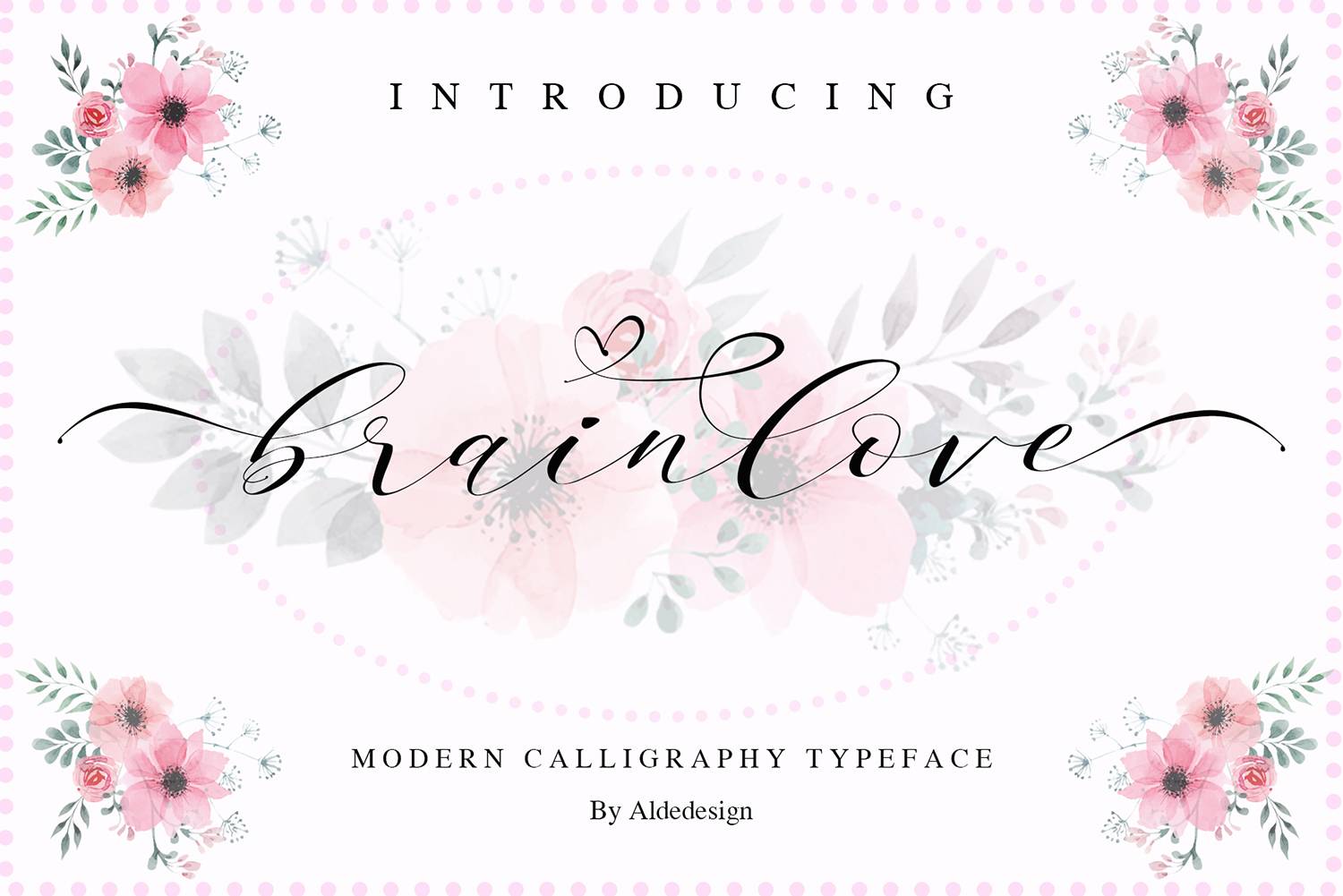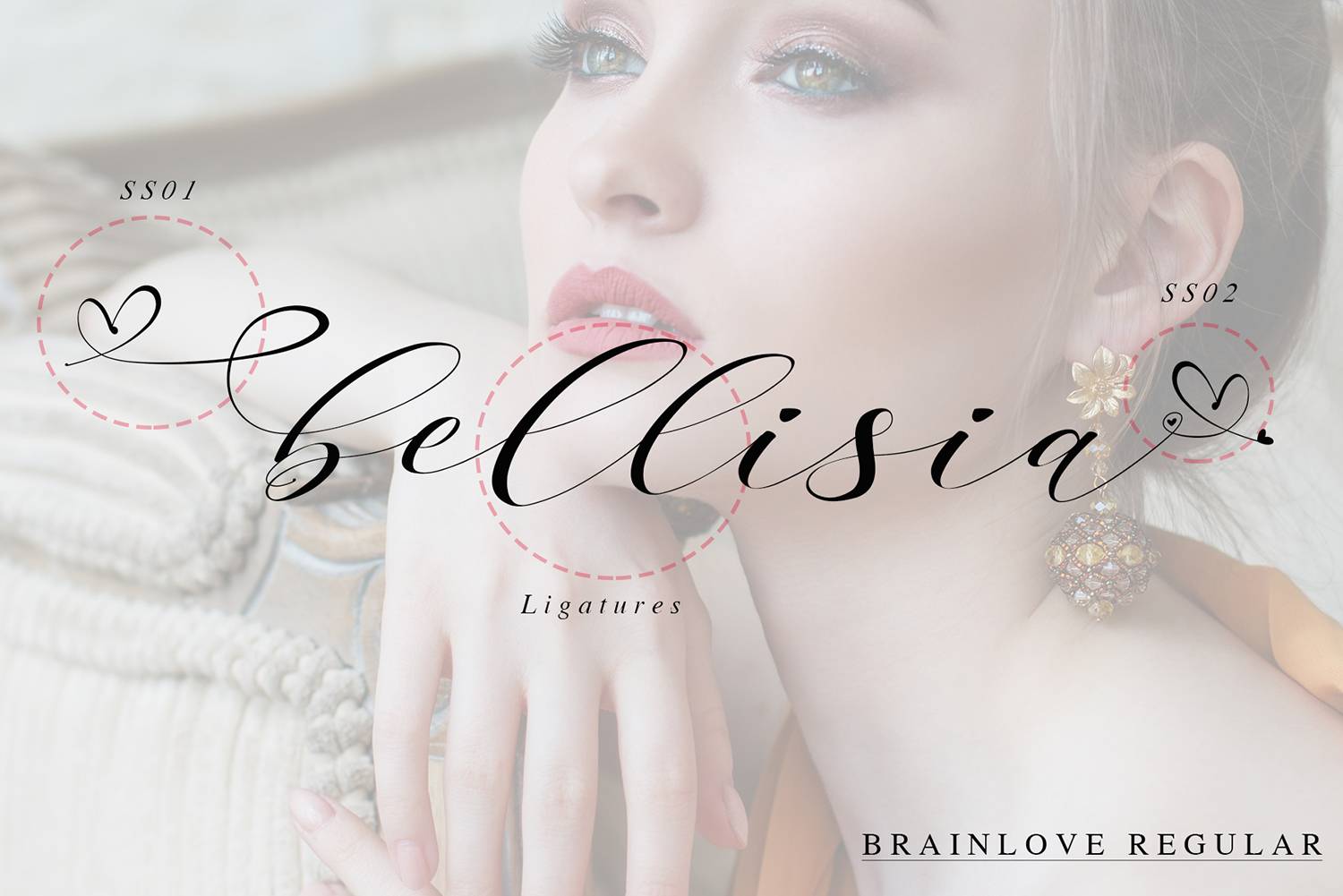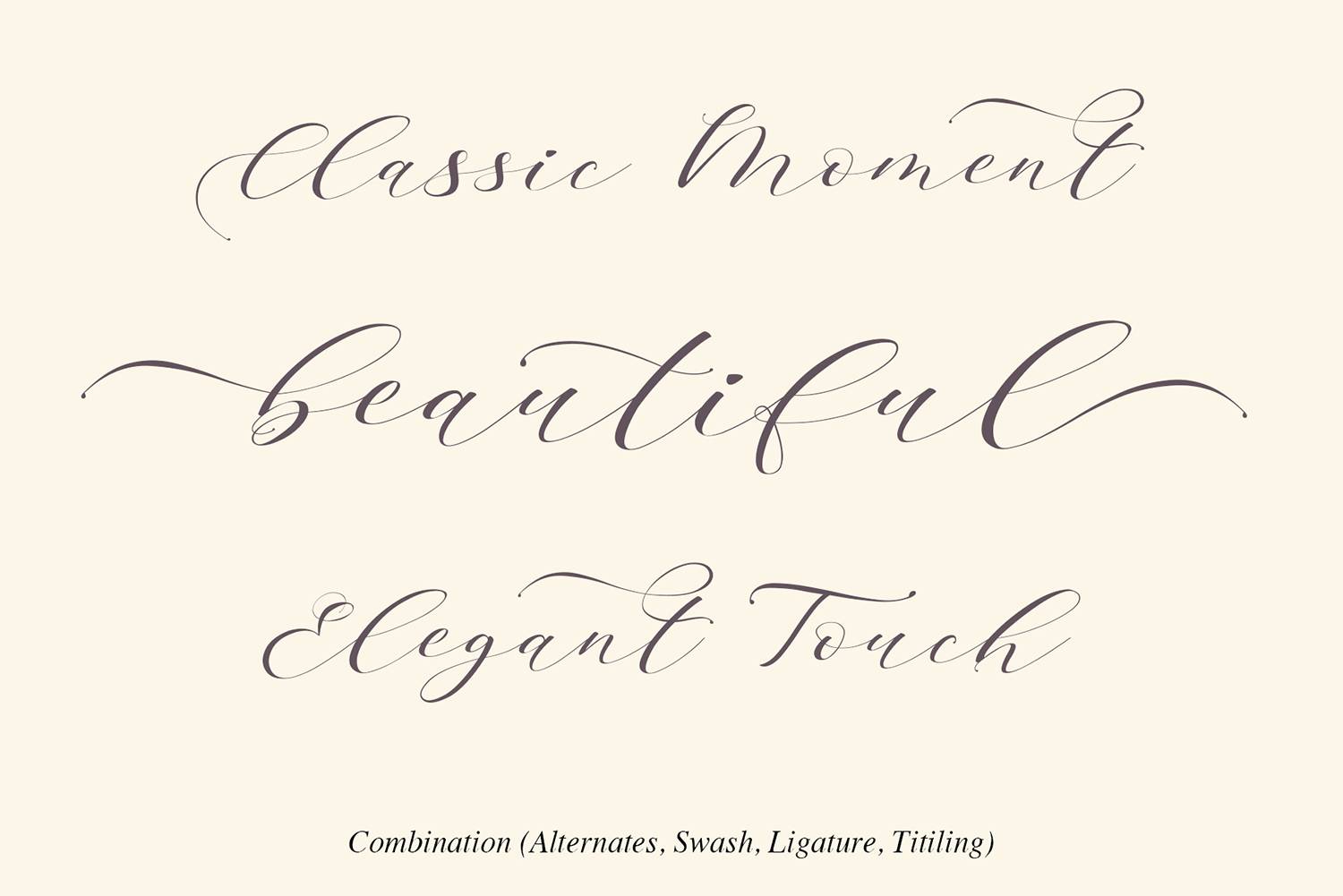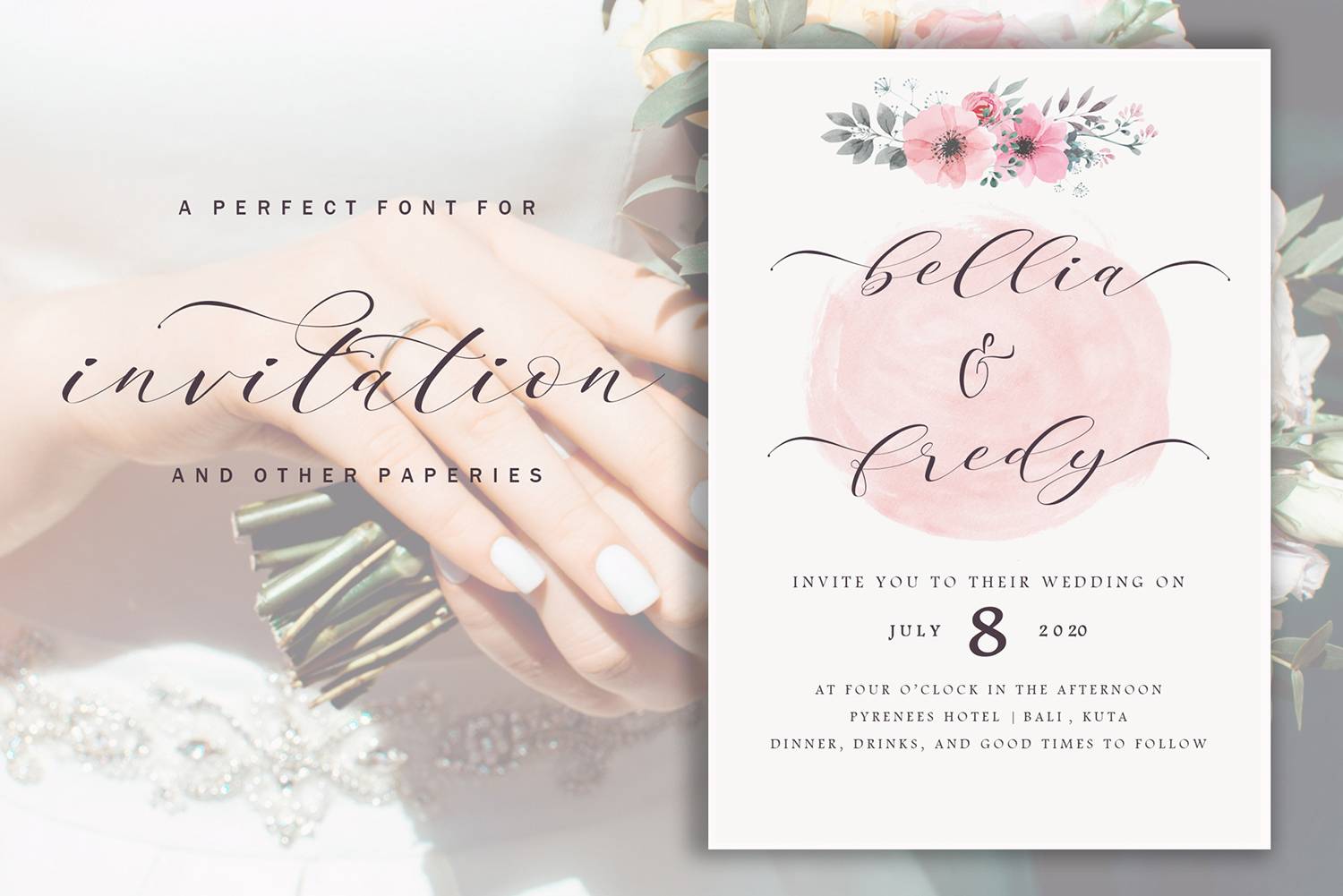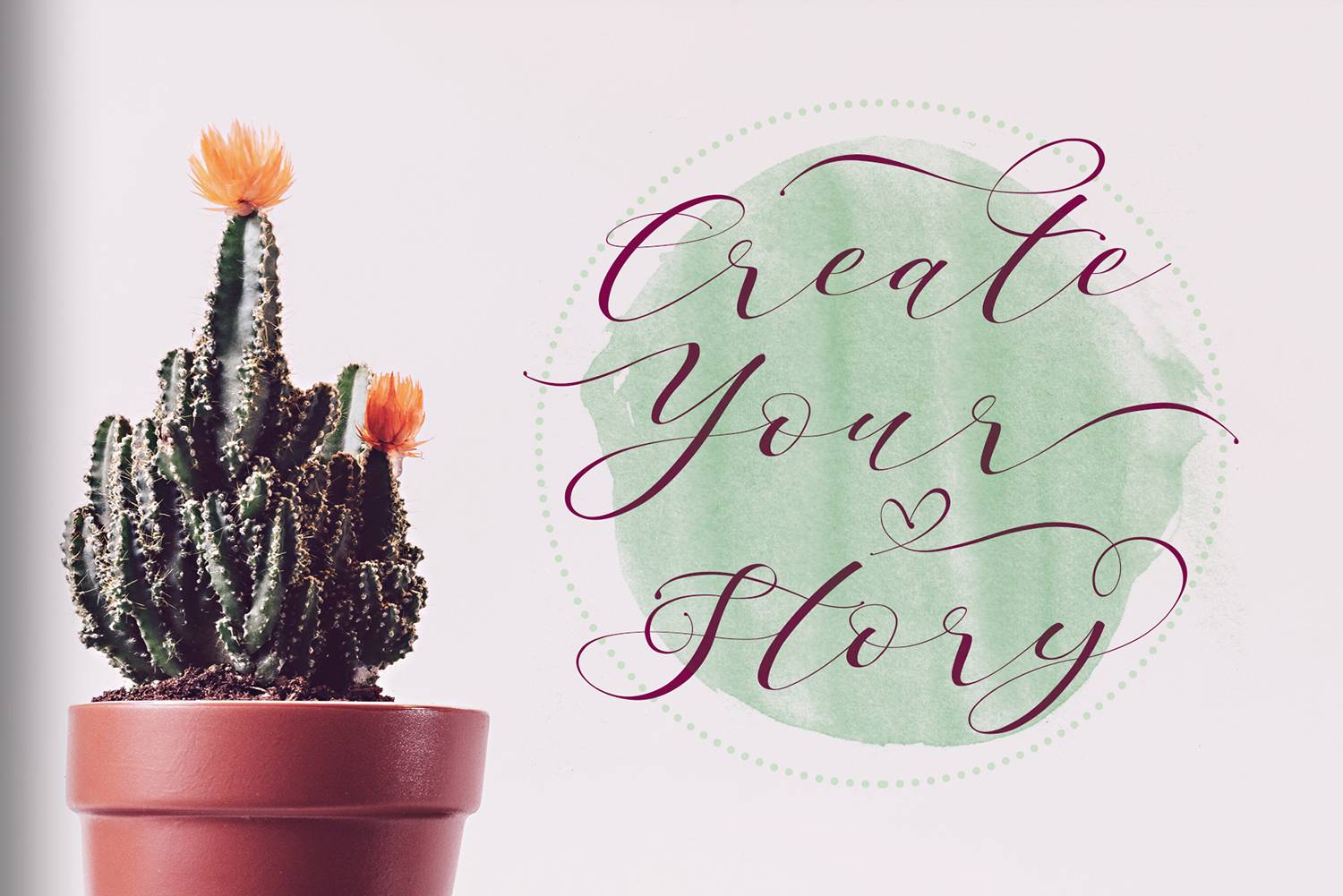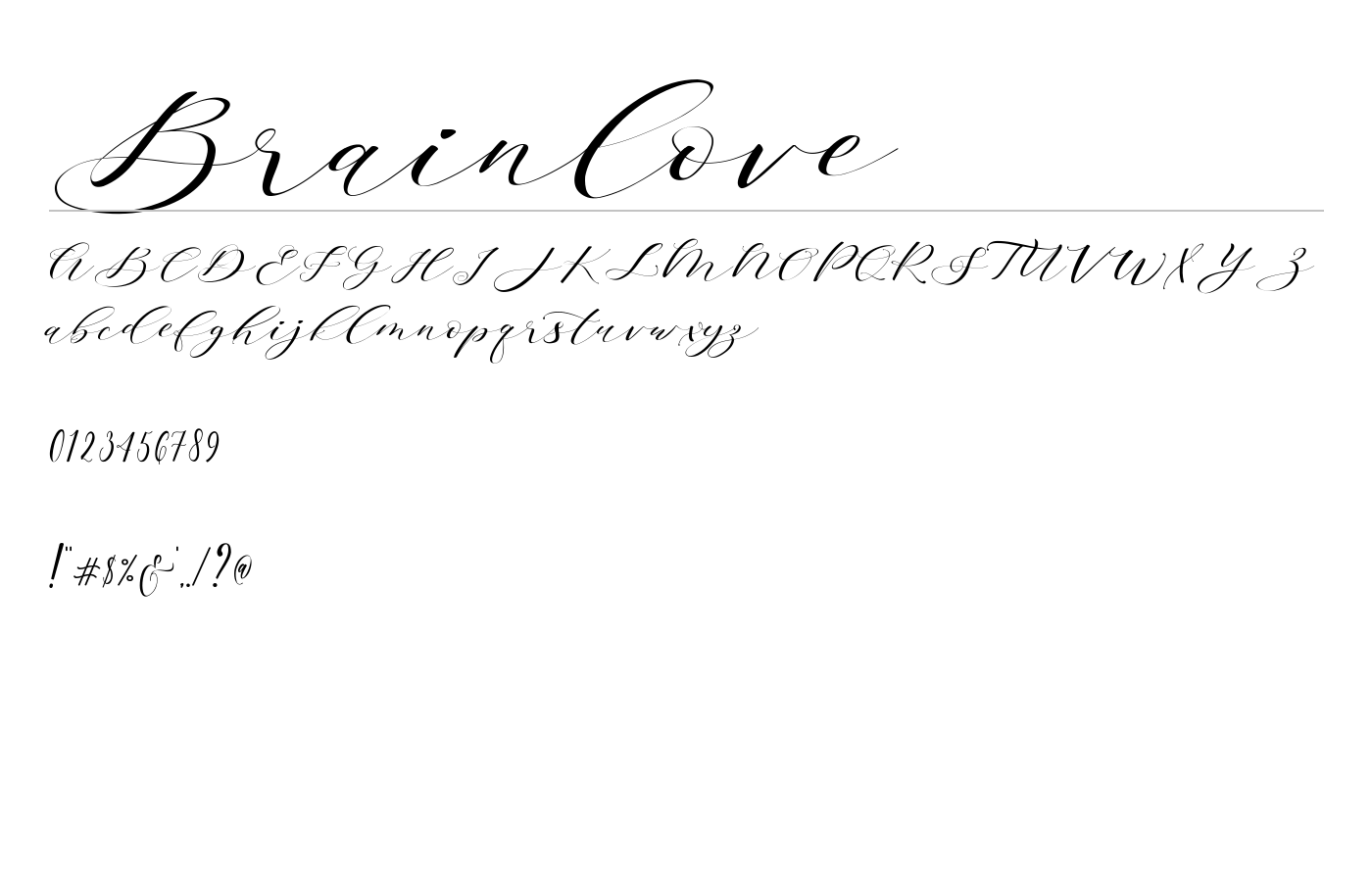
Brainlove is an elegant script font with delicate, flowing strokes that evoke a sense of romance and sophistication. Its slender, calligraphic letterforms with varying stroke thicknesses and graceful swashes make it ideal for wedding invitations, luxury branding, and refined editorial designs that seek a personal, artistic touch. The font’s airy, decorative style adds a timeless, feminine charm perfect for projects that aim to convey beauty and elegance.
Brainlove Font
About Brainlove Font